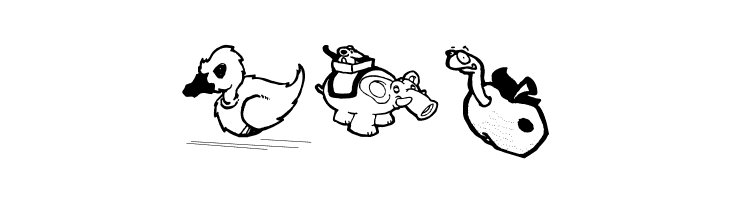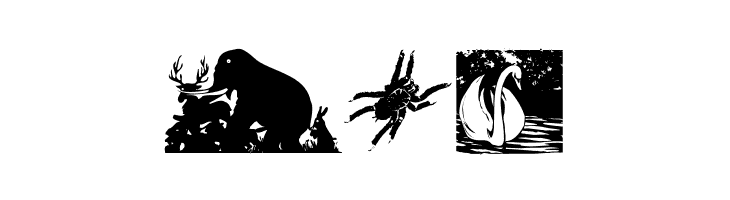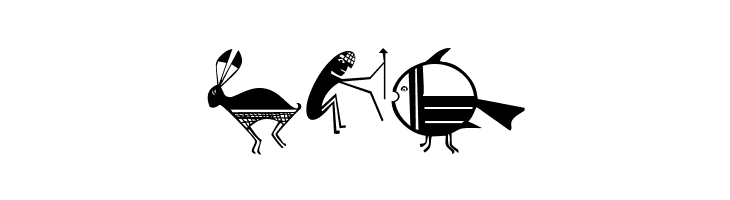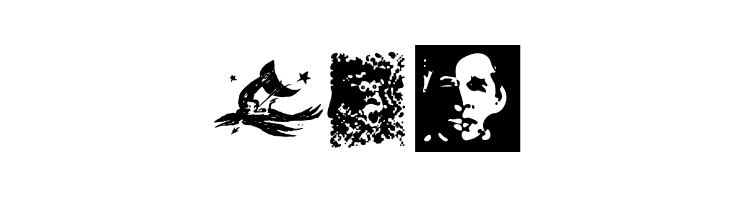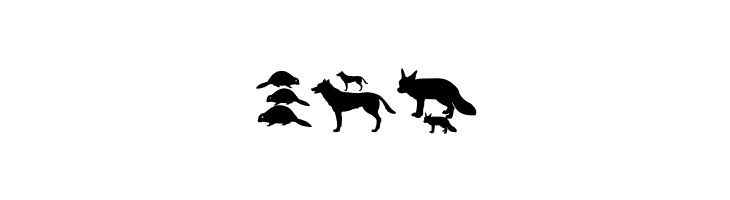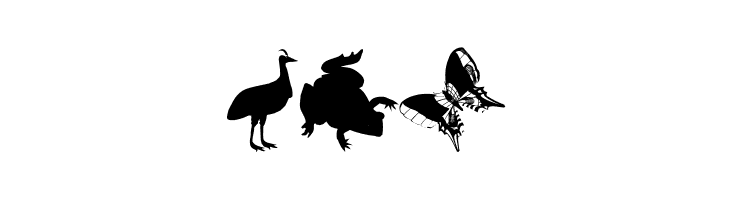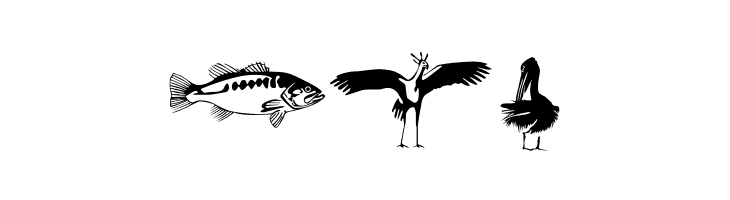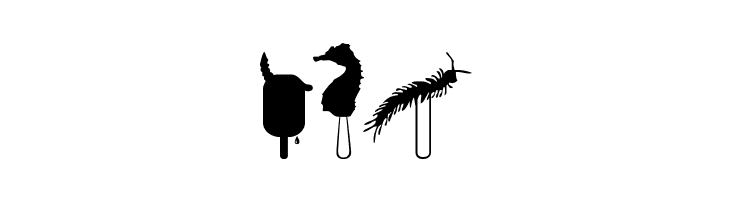
Cartoonish, bold-outlined animal and creature illustrations with a humorous style.
Animal-themed decorative dingbat font with diverse, detailed illustrations.
A decorative dingbat font with assorted vector illustrations.
Playful pictogram font made of animal silhouettes.
Animal silhouettes form each character in a decorative, illustrative style.
A whimsical doodle font with playful, hand-drawn elements and a casual, sketch-like style.